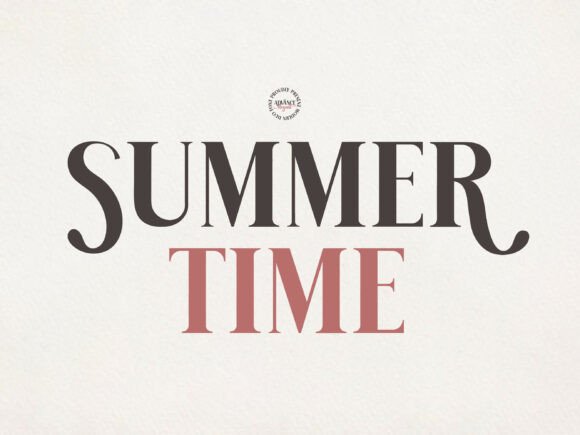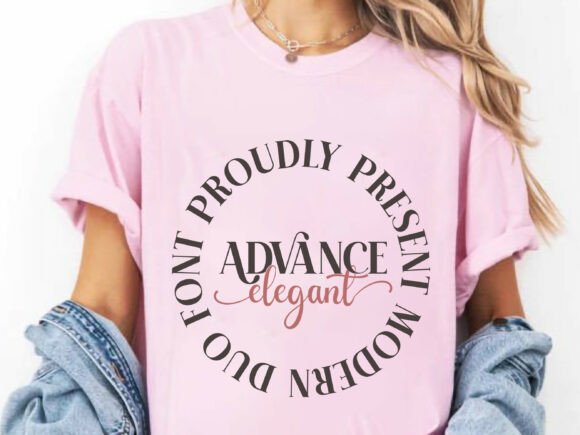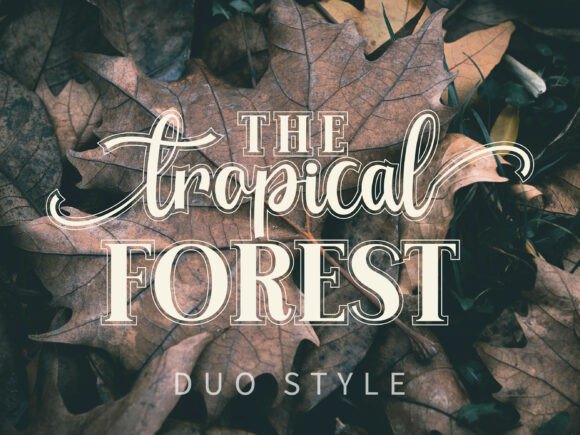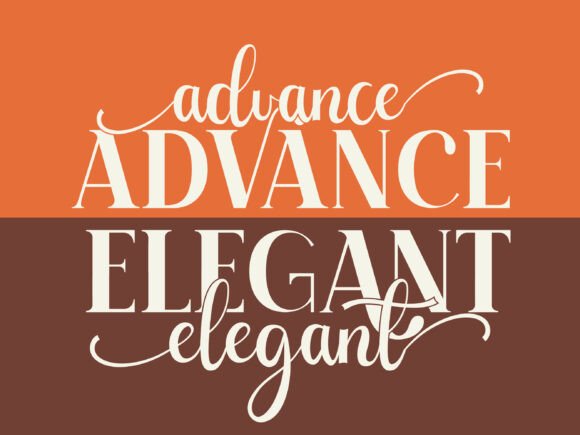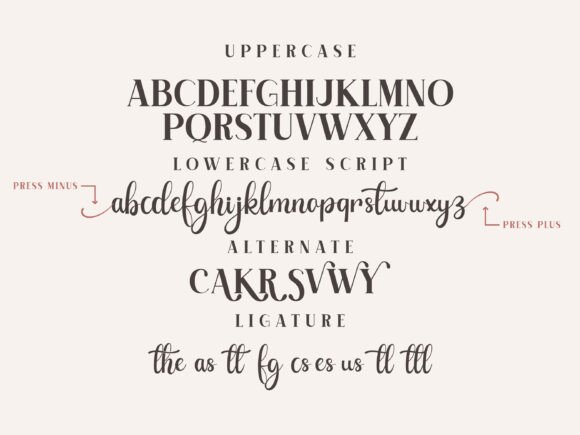
The Elegance of Advance Elegant Font: A Designer’s Dream Come True
I still remember the design project that led me to discover the Advance Elegant font. I was working on a luxury wedding invitation suite, and my client wanted a font that exuded sophistication, romance, and high-end style. After hours of scouring font libraries and testing various combinations, I stumbled upon Advance Elegant. It was love at first sight! The perfect blend of high-contrast serif and fluid script elements instantly elevated my design, and my client’s expectations were not only met but exceeded.
What I Love About Advance Elegant Font
- ✨ Sophisticated design: Advance Elegant seamlessly blends a high-contrast serif with a fluid, romantic script, making it perfect for luxury branding and editorial projects.
- ✅ Versatility: This font is incredibly versatile, pairing well with minimalist sans-serifs for magazine layouts or standing alone for high-end branding projects.
- 💫 Unique ligatures and flourishes: The font’s OpenType features, including ligatures and stylistic alternates, allow for custom lettering art that’s both bespoke and timeless.
While Advance Elegant is an exceptional font, there are a few minor quirks to consider:
- ⚠️ Learning curve: With so many OpenType features and glyphs available, it may take some time to get familiar with the font’s capabilities.
- 🤔 Script element consistency: Depending on the project, you may need to adjust the script elements to maintain consistency in spacing and flow.
The Designer Inspiration Behind Advance Elegant Font
The Advance Elegant font was designed with the intention of creating a typeface that embodies the perfect balance between luxury and romance. The designer’s inspiration came from the world of high-end fashion, where sophistication and elegance reign supreme. By combining the classic serif with the fluidity of script elements, the designer aimed to create a font that’s both timeless and bespoke.
| What is the best way to pair Advance Elegant with other fonts? | Advance Elegant pairs well with minimalist sans-serifs, such as Helvetica or Arial, to create stunning magazine layouts or high-end branding projects. |
| Is Advance Elegant suitable for body text? | While Advance Elegant is an elegant font, it’s recommended to use it for headlines, titles, or short paragraphs due to its high-contrast serif and script elements. |